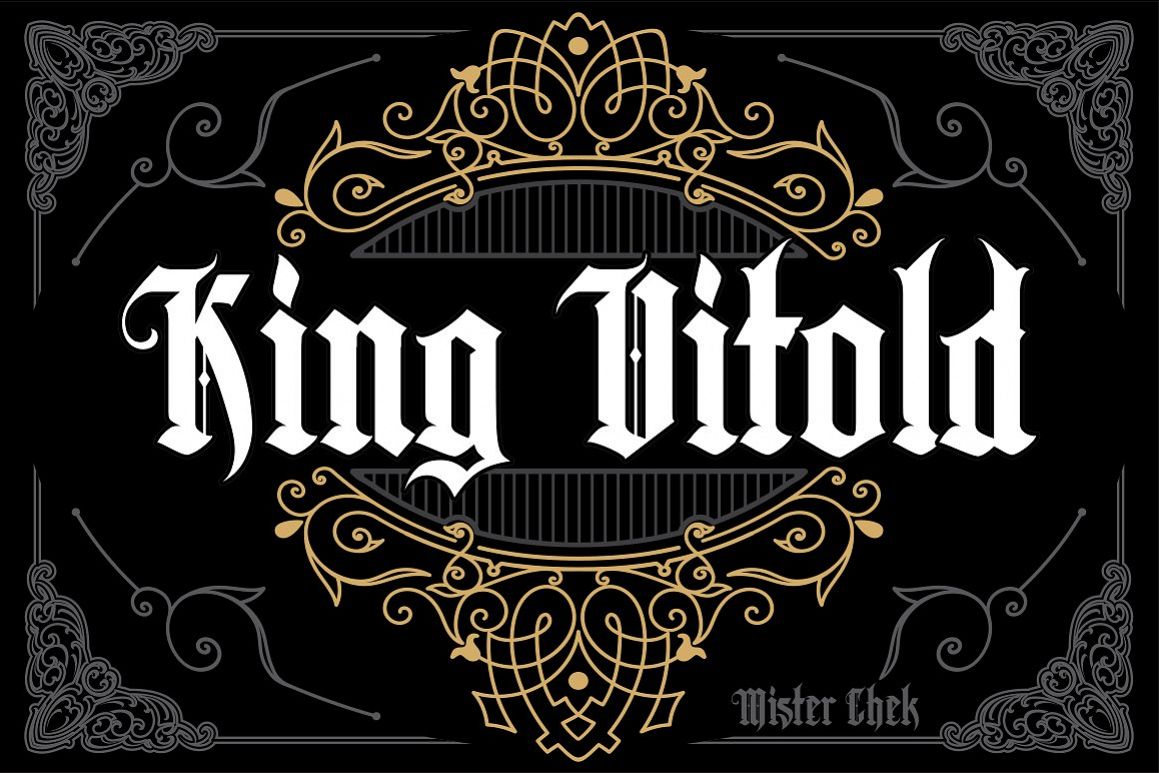
King Vitold
King Vitold is a decorative, gothic inspired typeface in
modern performance.
It is perfect for:
Logos
Posters
Labels
Headlines
Apparel
& more